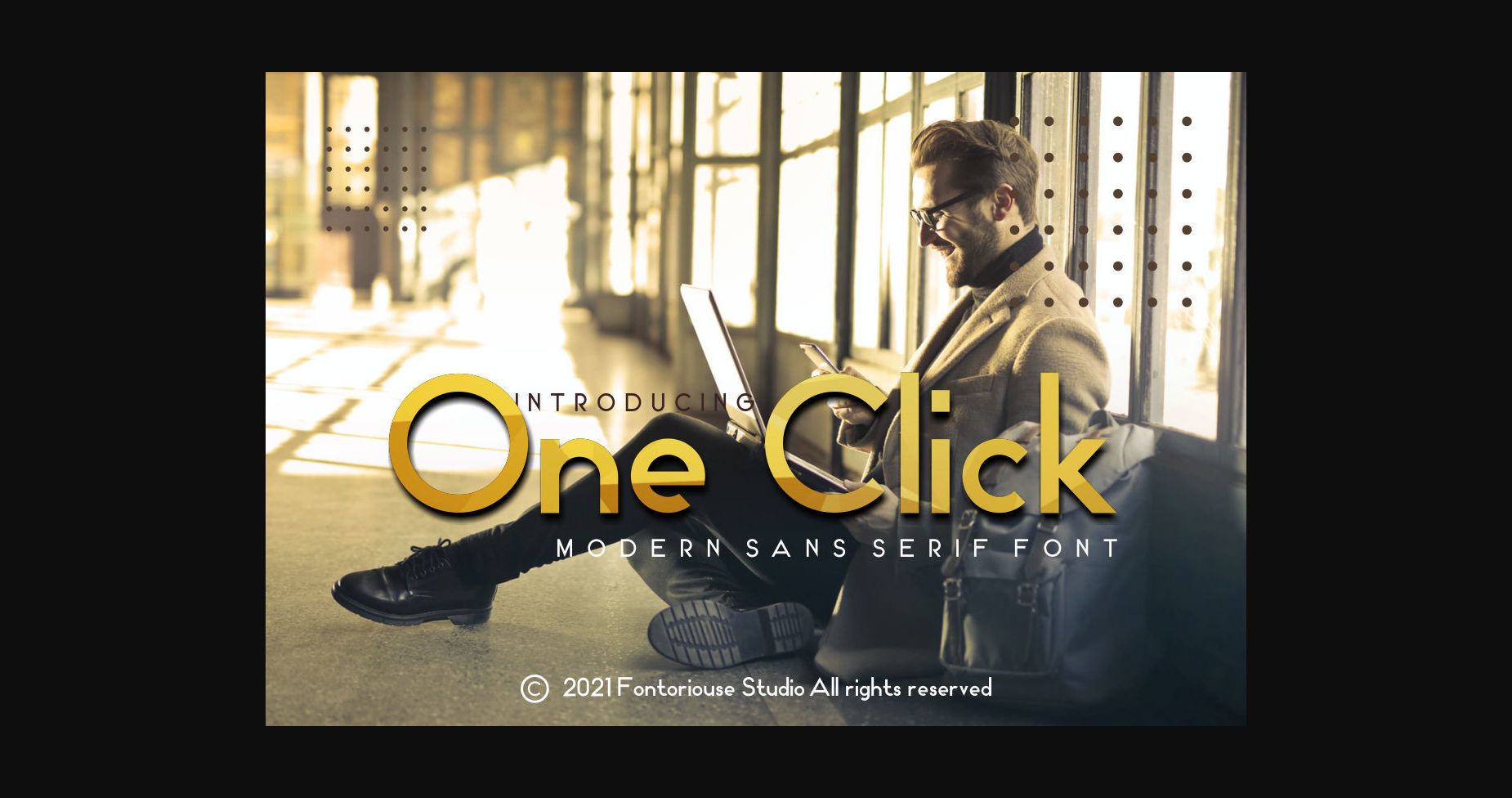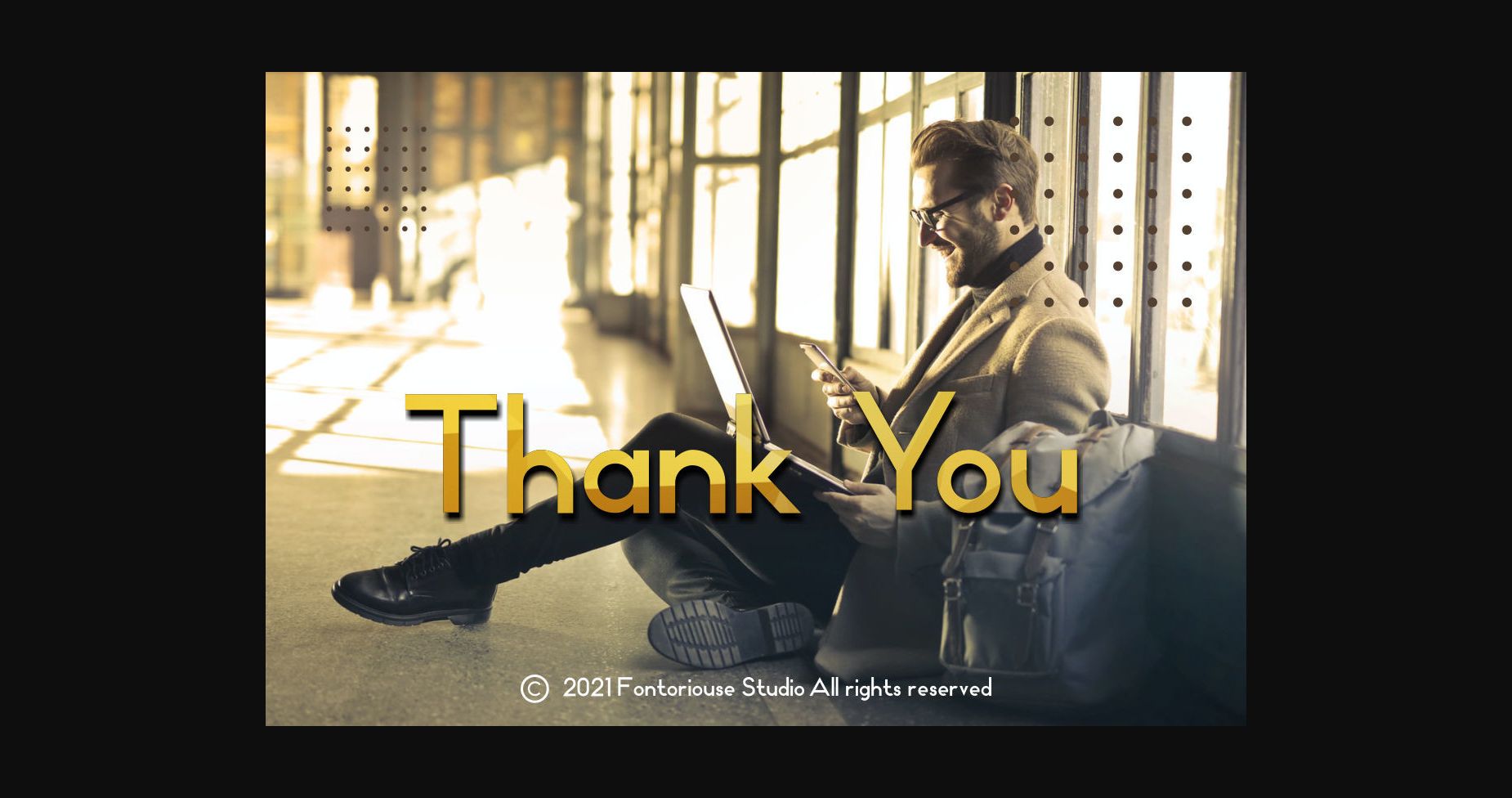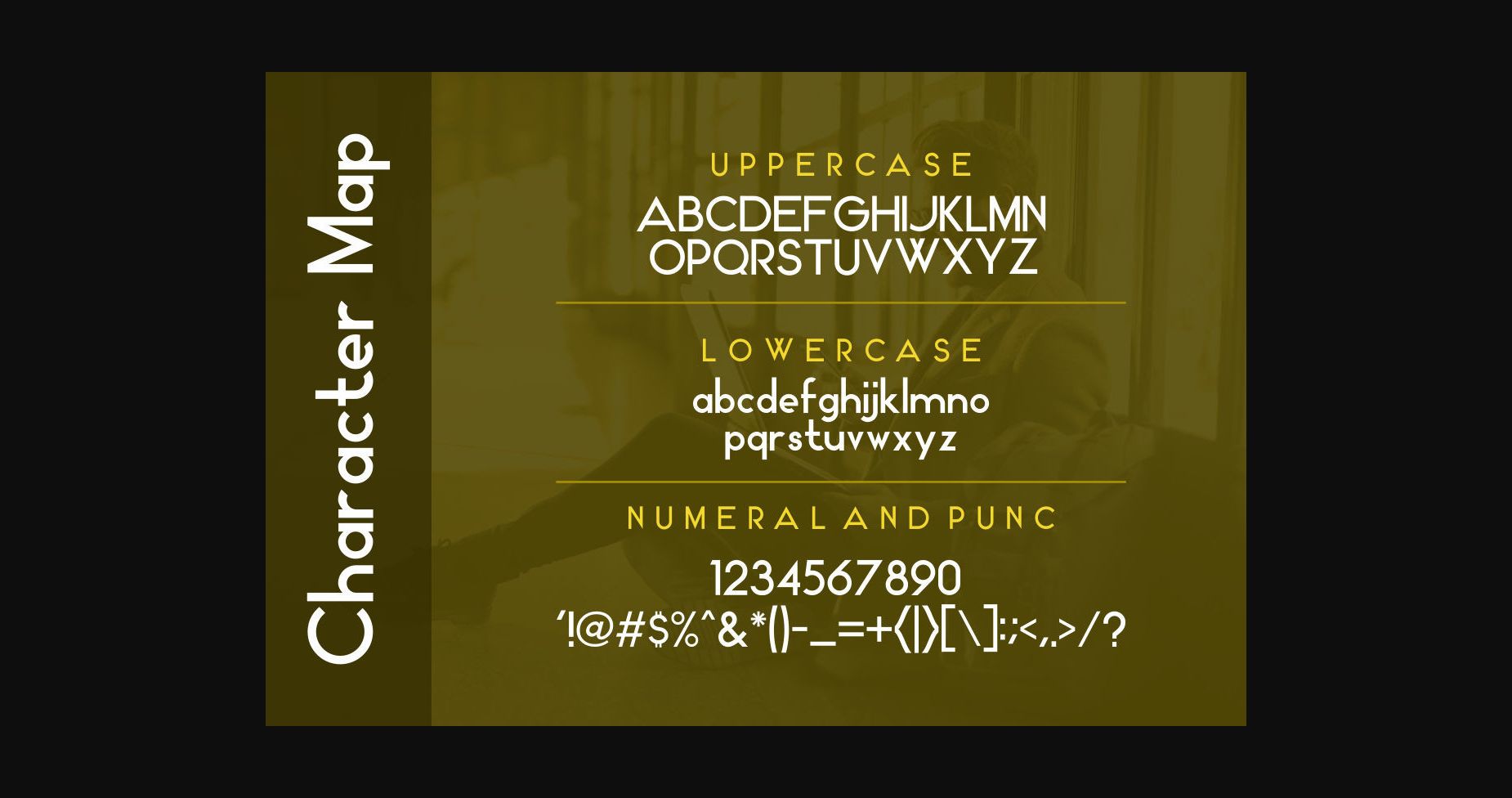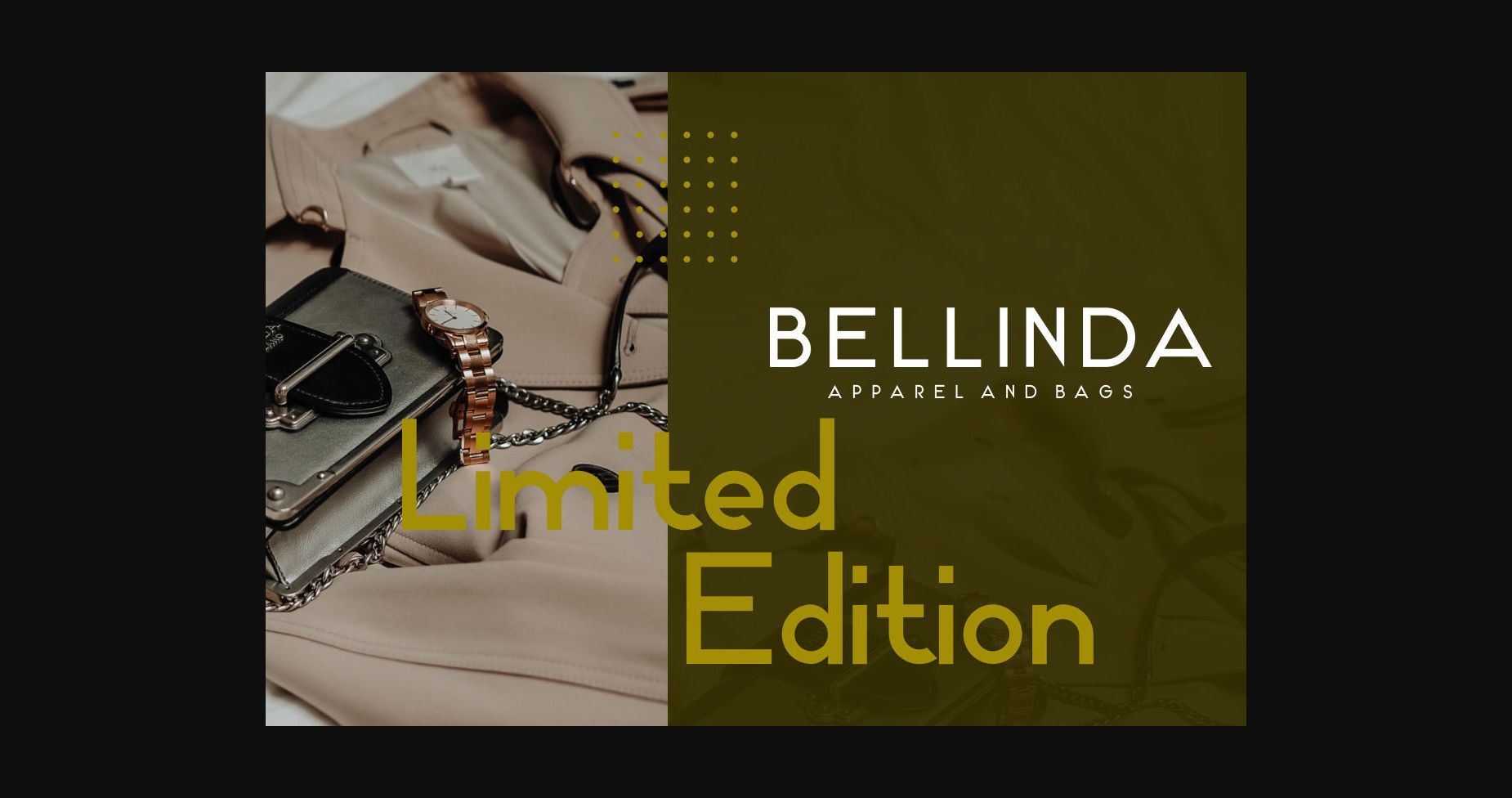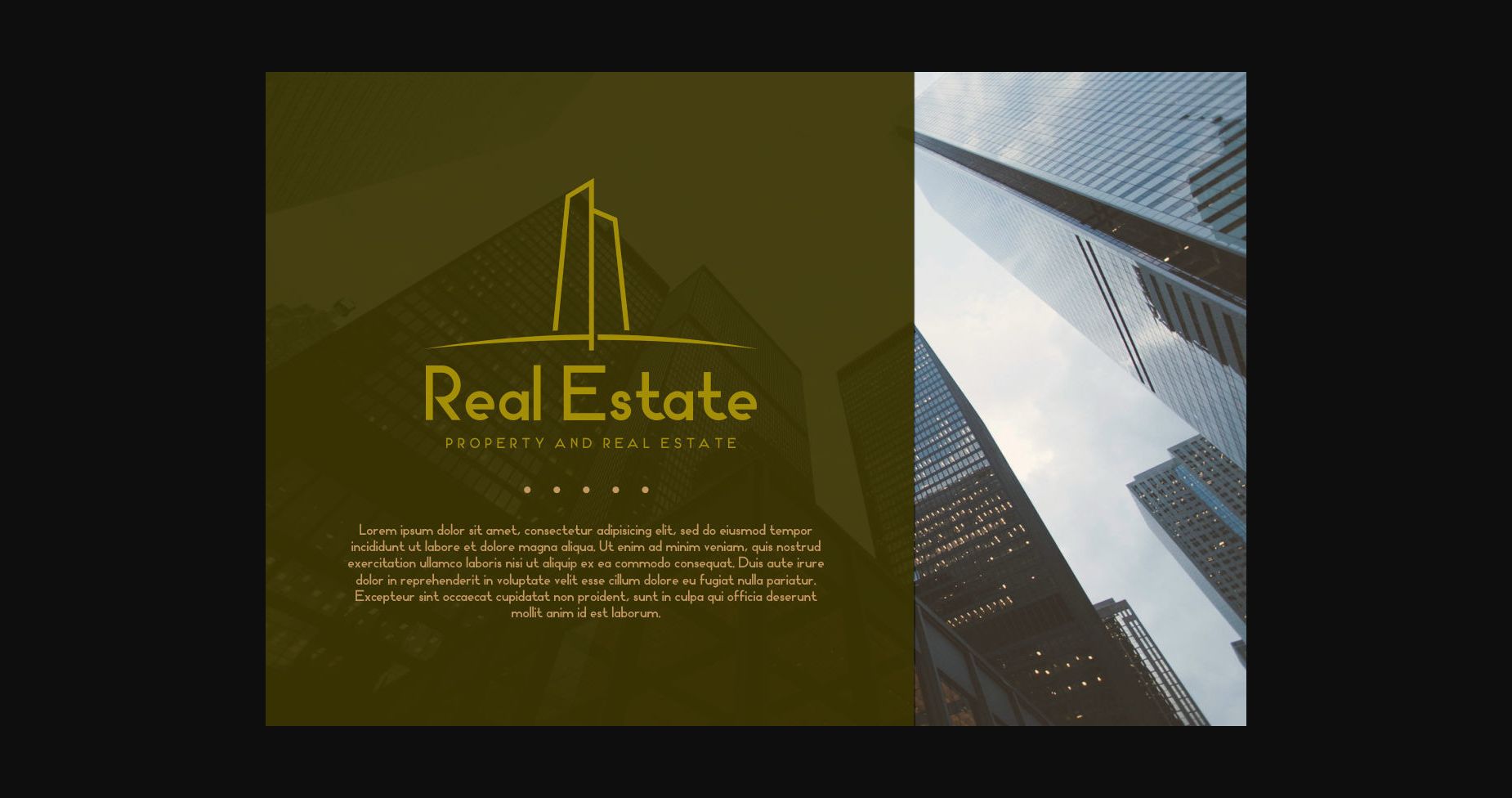
About One Click Font
“One Click” in a sans serif font that is perfect for all your design project needs.
“One Click” is perfect for company or product logos, even for products! Whether it’s a logotype, invitation, t-shirt design, official office text, or anything with an official and luxurious impression.